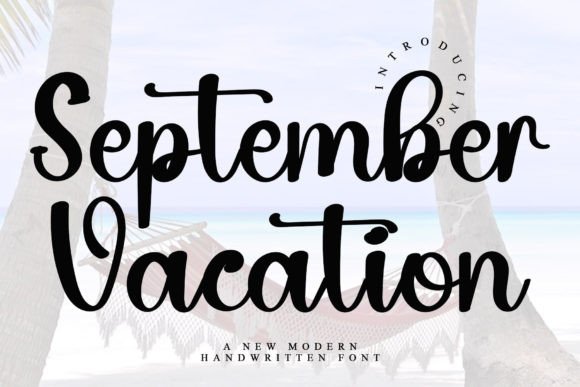
Journey through time with September Vacation, an exquisite script font that evokes a sense of nostalgia and elegance. Crafted with meticulous attention to detail, this remarkable font draws inspiration from the enduring beauty of classic calligraphy, seamlessly blending the charm of the past with a modern, contemporary touch.
Unleash your creativity and let your words dance across the page with the grace and fluidity of September Vacation. Whether you're designing captivating book covers, crafting heartfelt invitations, or creating eye-catching social media posts, this font is your perfect companion. Immerse yourself in the joy of writing and let your imagination soar.
Step into a world where every letter tells a story, where every word carries an emotion. September Vacation is more than just a font; it's an invitation to express yourself with authenticity and style. With its balanced and varied design, this font will effortlessly enhance the beauty of your projects, adding a touch of timeless elegance to every creation.
Discover a world of endless possibilities with September Vacation. Its PUA encoding grants you access to a treasure trove of stunning glyphs and ligatures, empowering you to add intricate details and flourishes to your designs. Elevate your projects to new heights of sophistication and leave a lasting impression on your audience.
Embrace the allure of September Vacation and embark on a creative journey that will inspire and captivate. Let your words flow freely, knowing that this font will faithfully capture the essence of your message with grace and poise. Dive into the world of September Vacation and experience the joy of creating something truly exceptional.